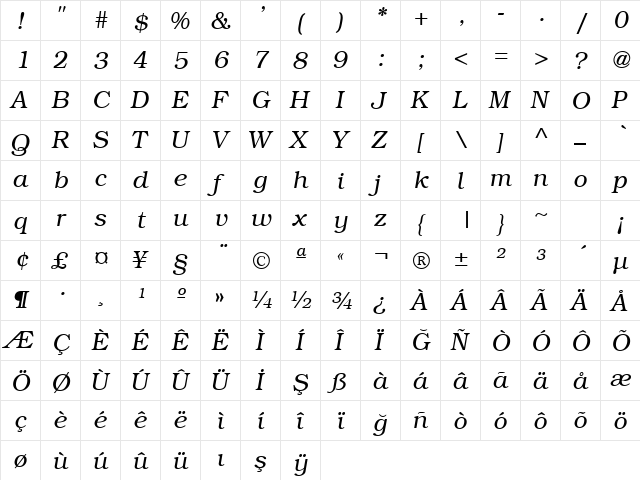
TR Bookman Italic
Design Context for TR Bookman Typeface
TR Bookman offers clean, dependable letterforms without strong stylistic allegiance, making it a practical choice for designers who need flexibility. The dynamic lean of this cut emphasises speed and emphasis in any layout.
Pro Tip: Try TR Bookman for annotation and caption copy alongside an upright companion — the contrast in angle creates a dynamic but ordered typographic system.